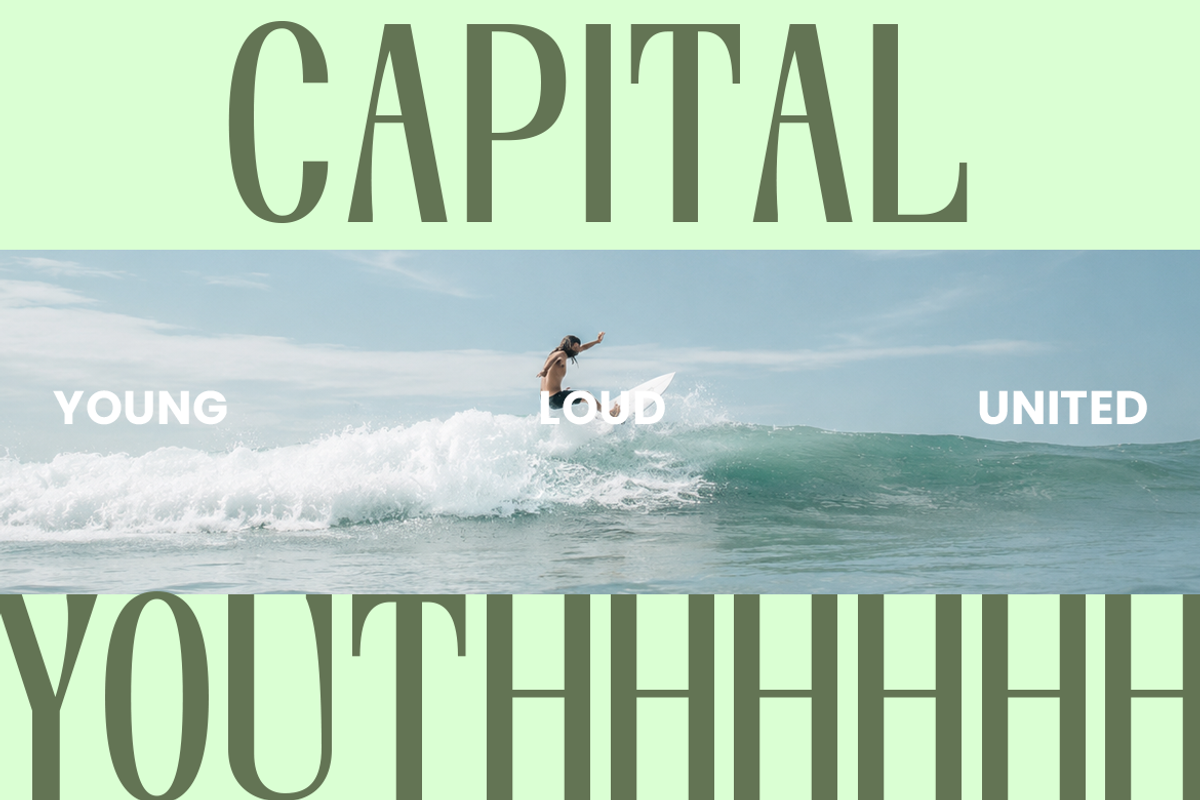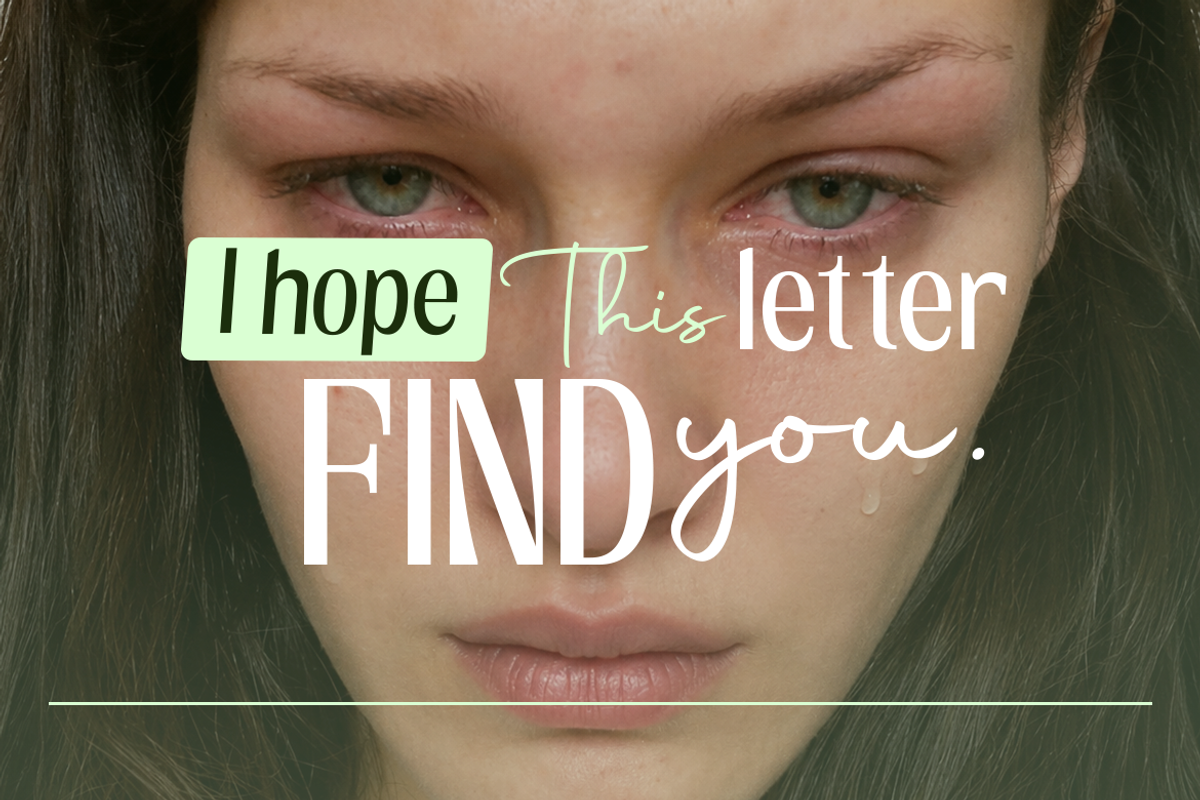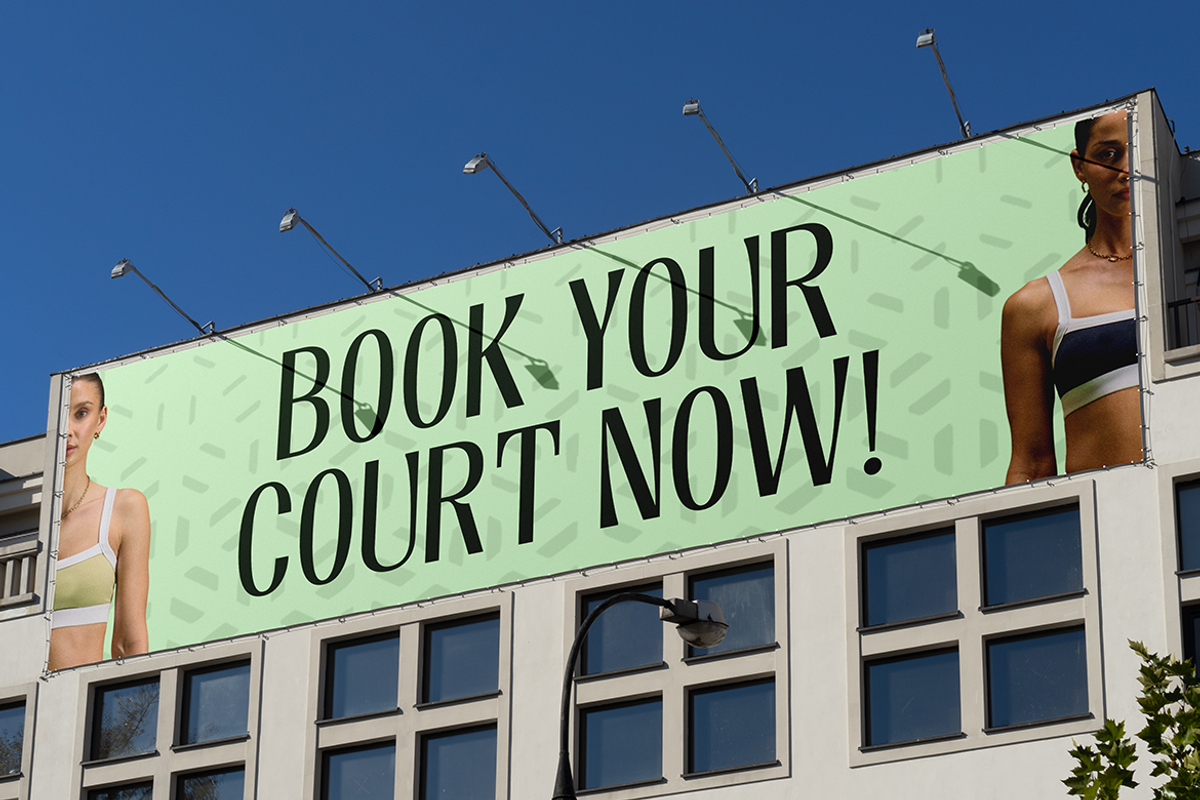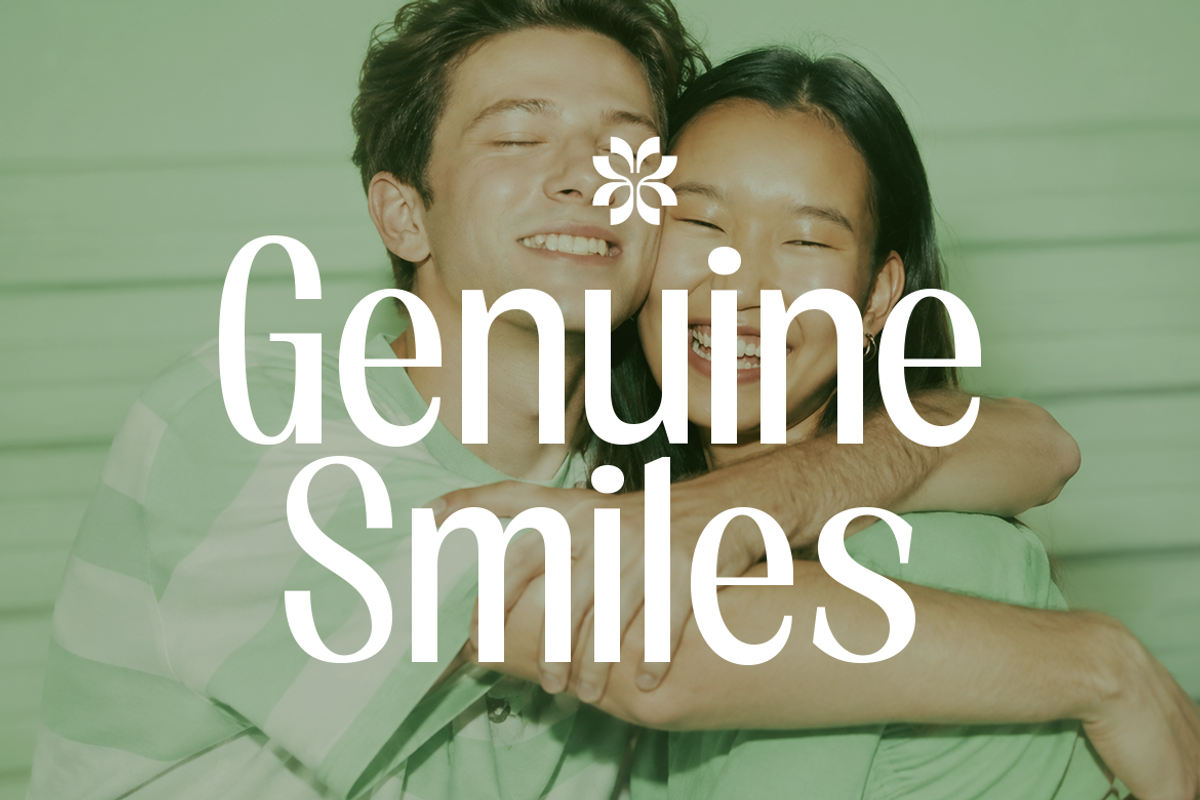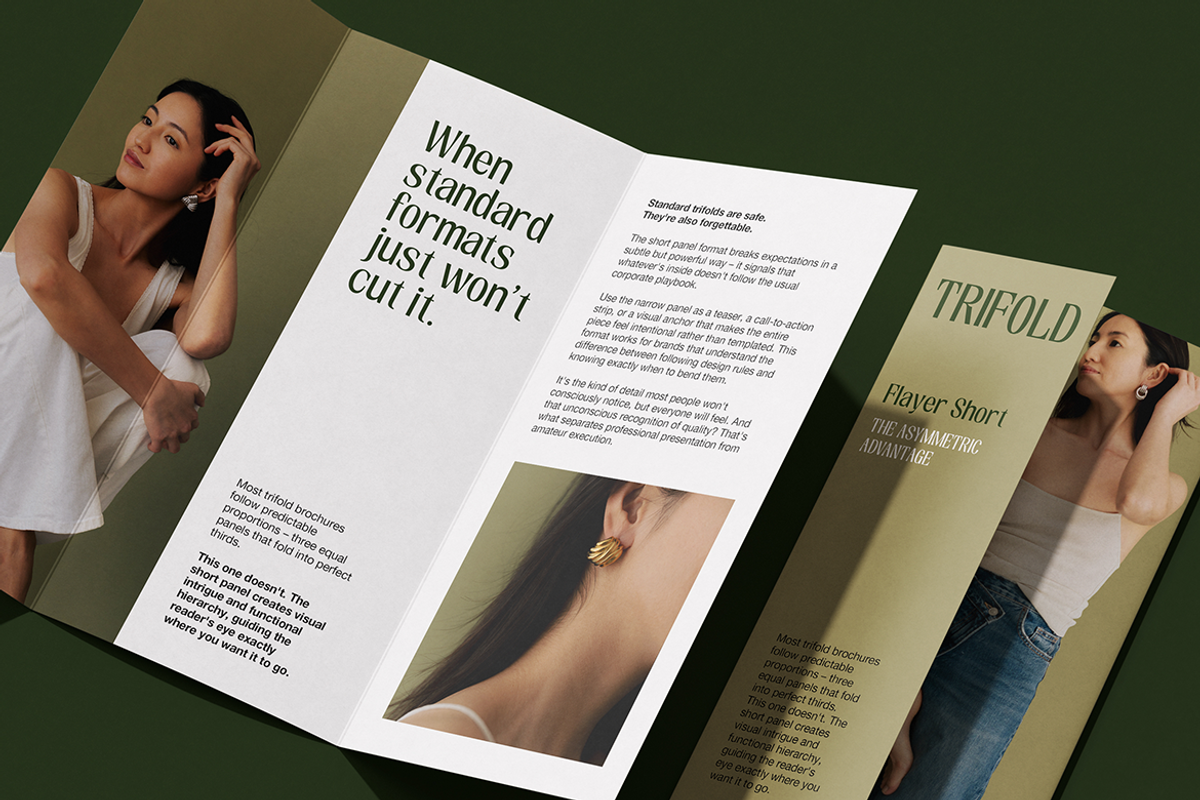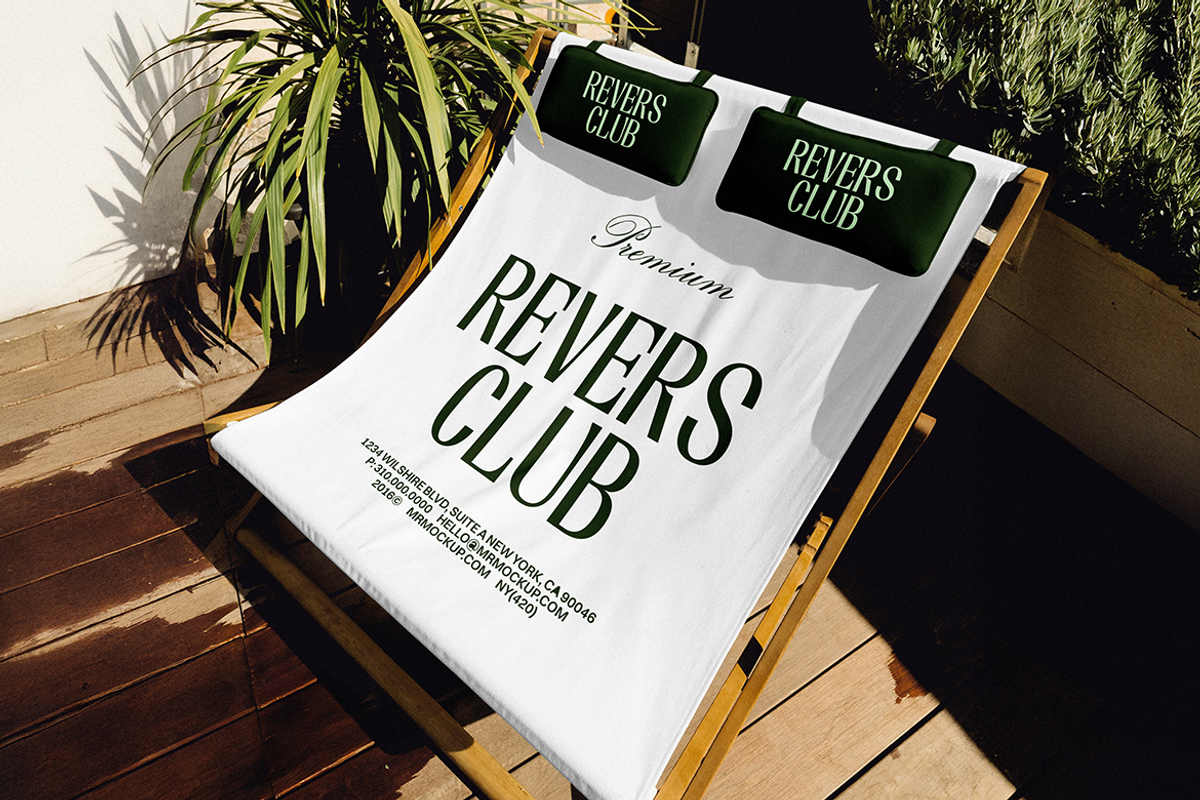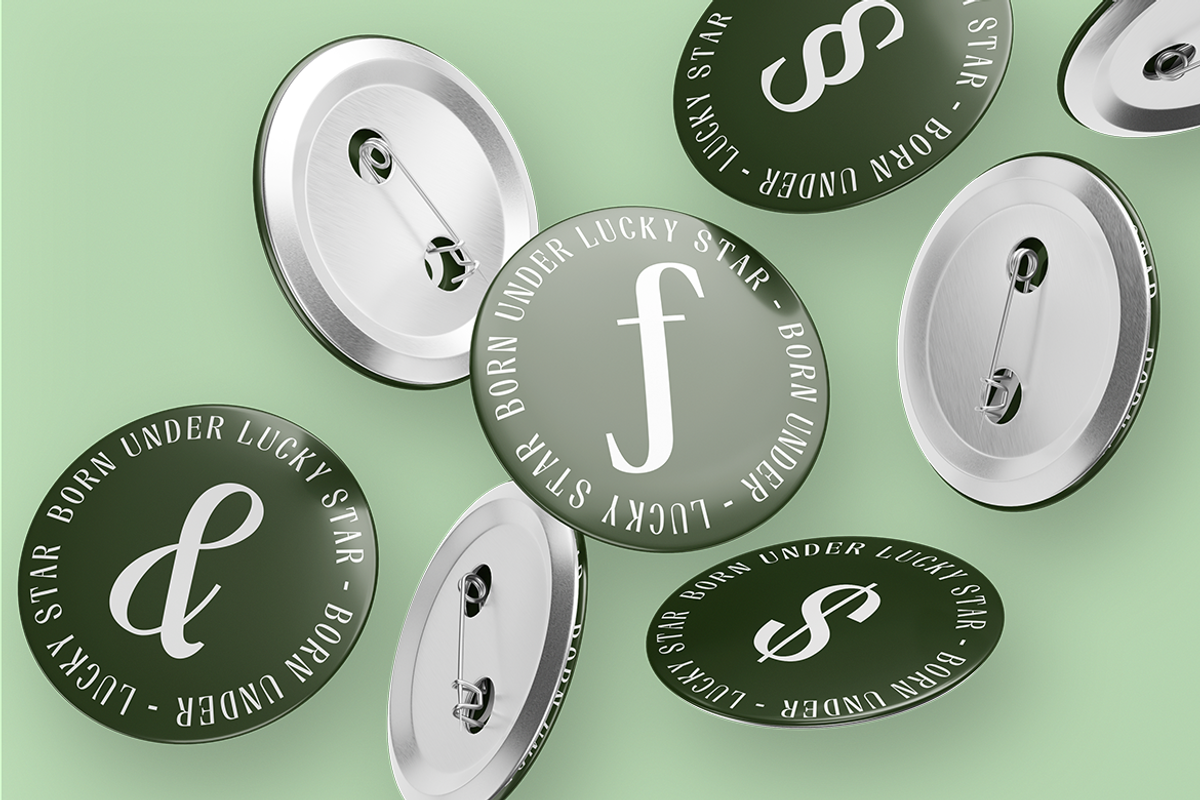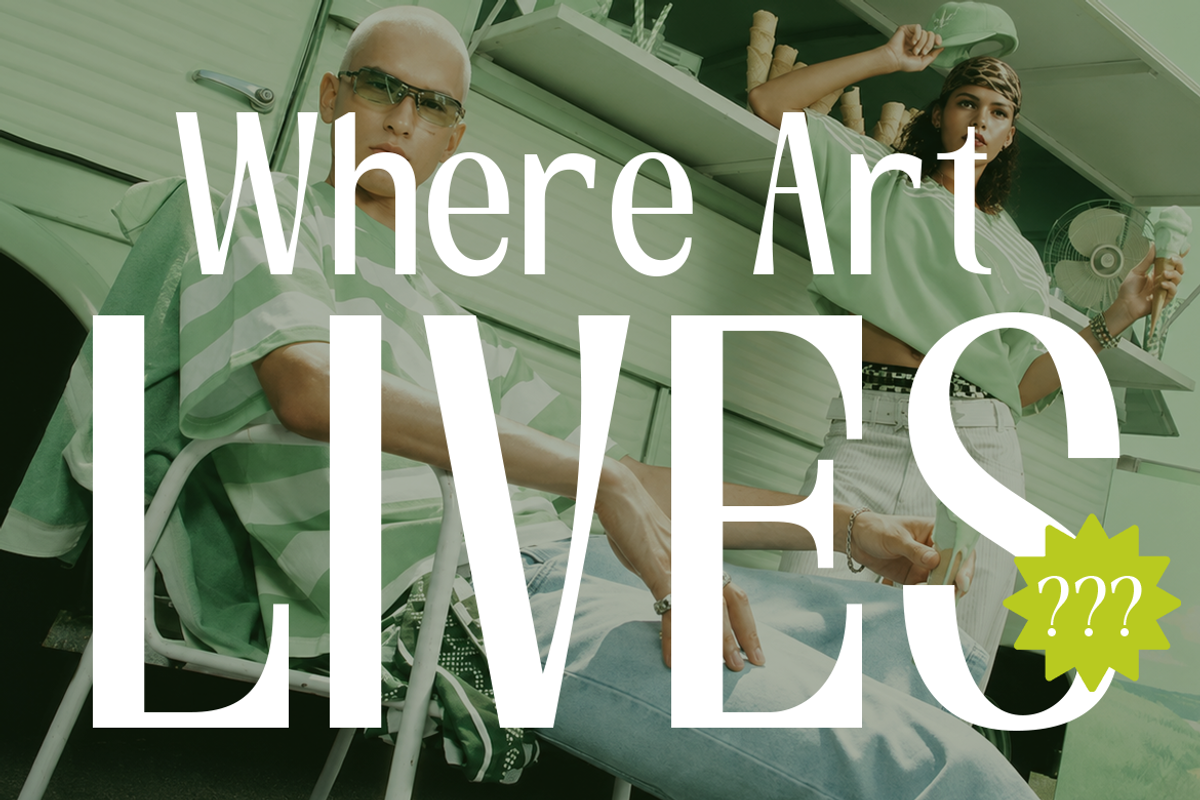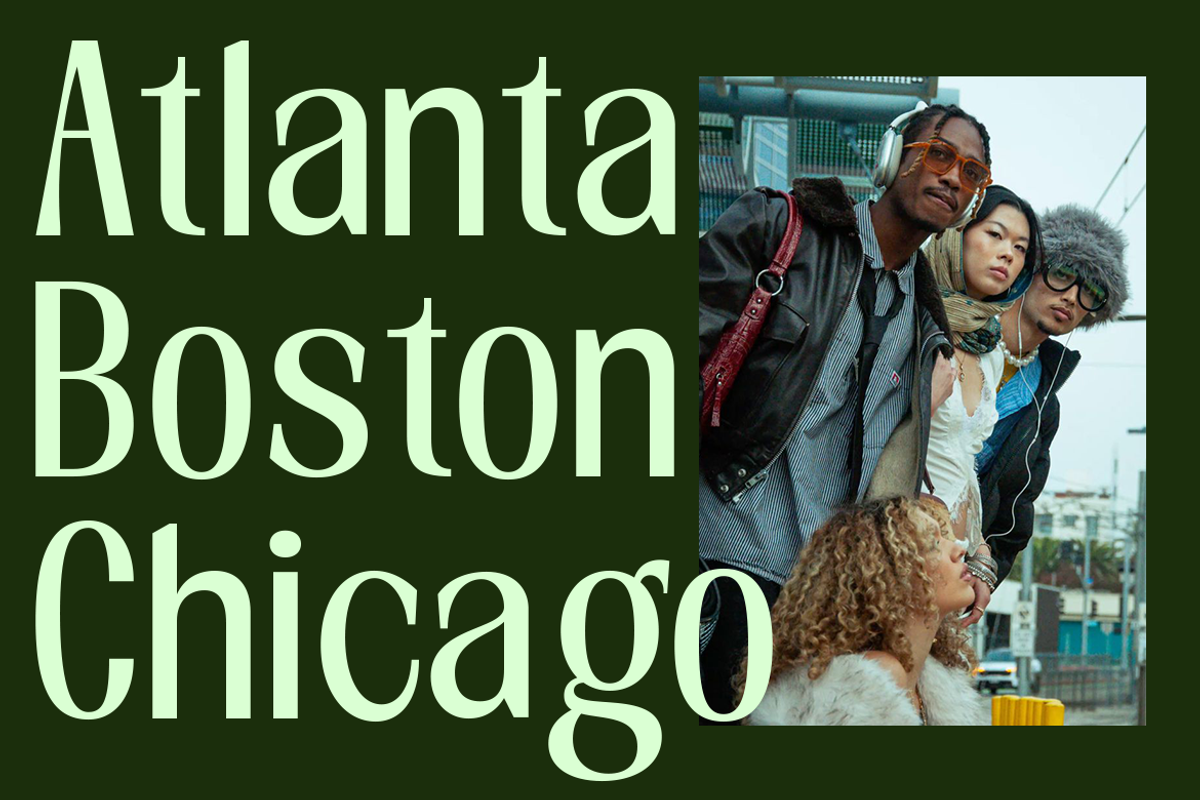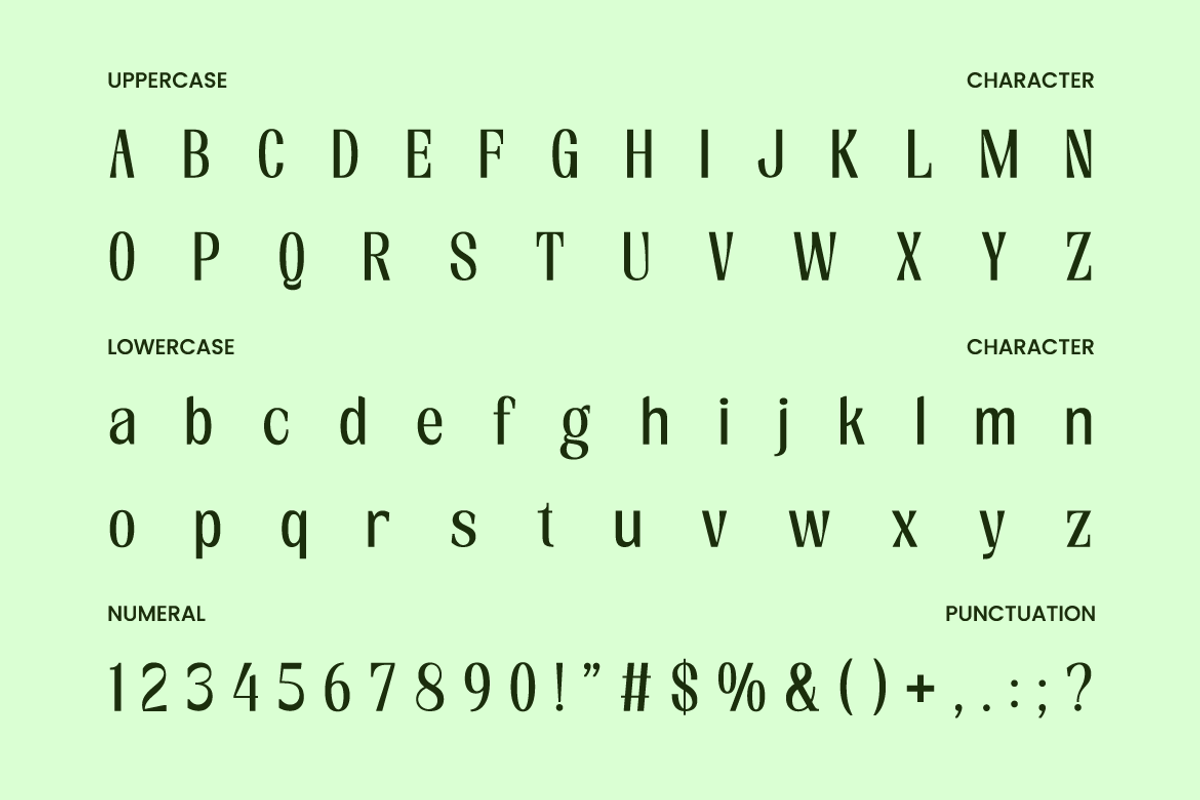
Waldien Modern Editorial Sans Font
Waldien Modern Editorial Sans Font is a typeface built around tall, narrow proportions and a refined contrast between slender vertical strokes and more substantial curved forms. The uppercase letters have an elongated, elegant structure with narrow widths, clean edges, and distinctive character shapes, while the lowercase set introduces softer curves and a more readable rhythm. Its extended proportions create a sophisticated vertical presence without becoming overly decorative, making the typeface especially effective when typography needs to feel contemporary, polished, and editorial.
Waldien includes uppercase, lowercase, numerals, and essential punctuation, giving designers a versatile character set for both prominent display typography and supporting text. Its narrow construction allows longer words and headlines to occupy less horizontal space, making it useful for editorial magazines, fashion branding, luxury identity concepts, magazine covers, posters, packaging, advertising headlines, website titles, social media graphics, and modern visual identity projects where a tall, narrow, elegant typographic style can create a strong hierarchy without taking up excessive horizontal space.
Tall, narrow letterforms create a refined vertical appearance
High, elongated uppercase proportions give headlines a distinctive editorial presence
Slim strokes are balanced with broader curved characters for visual contrast
Lowercase forms introduce softer curves while maintaining the narrow overall structure
Clean geometric construction keeps the lettering polished and contemporary
Editorial layouts, magazines, and fashion publications with a refined look
Brand identities that need a clean, sophisticated typographic style
Luxury packaging, labels, and product presentation designs
Website headers, landing pages, and digital layouts with strong typography
Social media graphics, posters, and campaigns with an elegant editorial feel
Supports numerals, punctuation, and extensive symbol set